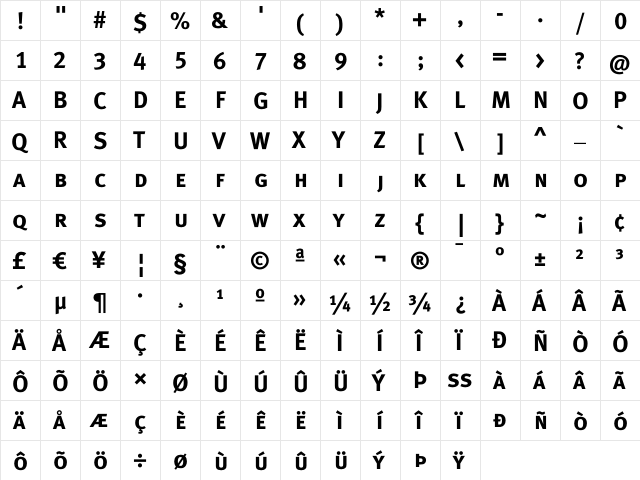
Meta Bold Lf Caps
Design Context for Meta Typeface
Meta is a composed and adaptable typeface that performs quietly and consistently across a wide range of design contexts. The heavy weight commands attention and anchors typographic hierarchies.